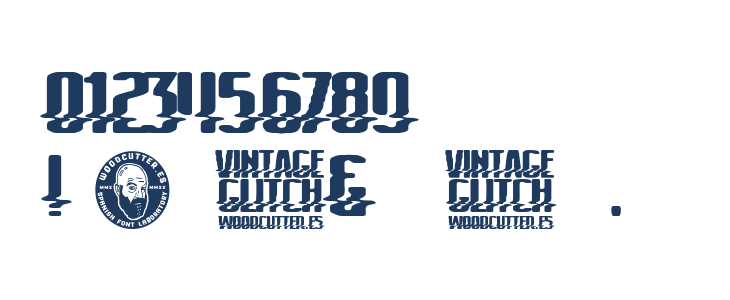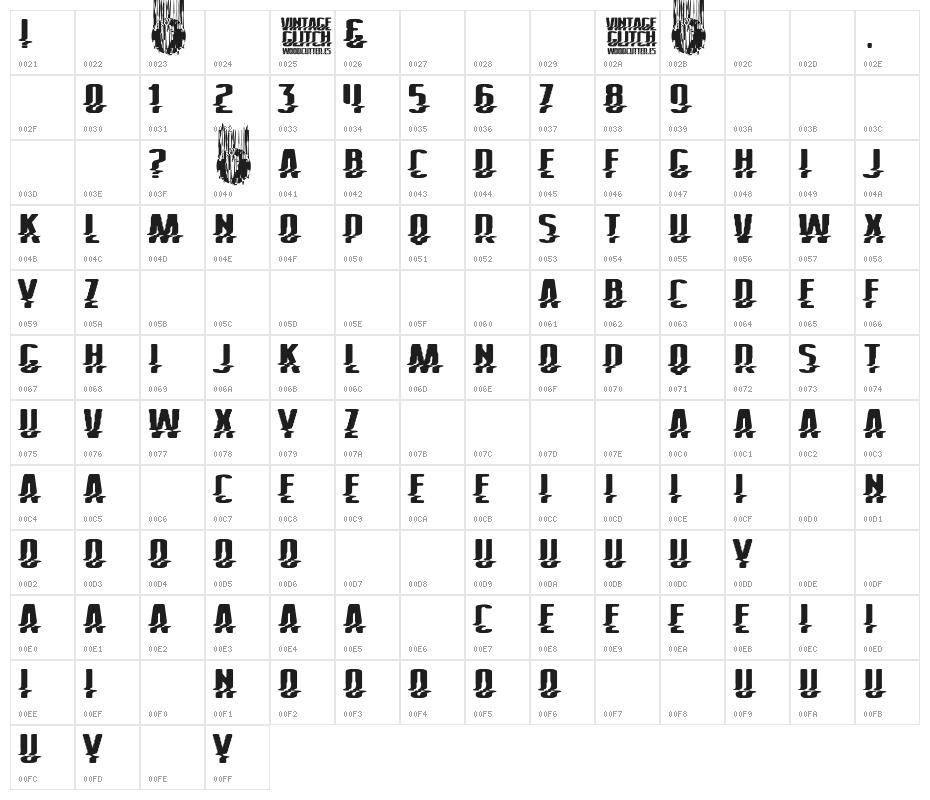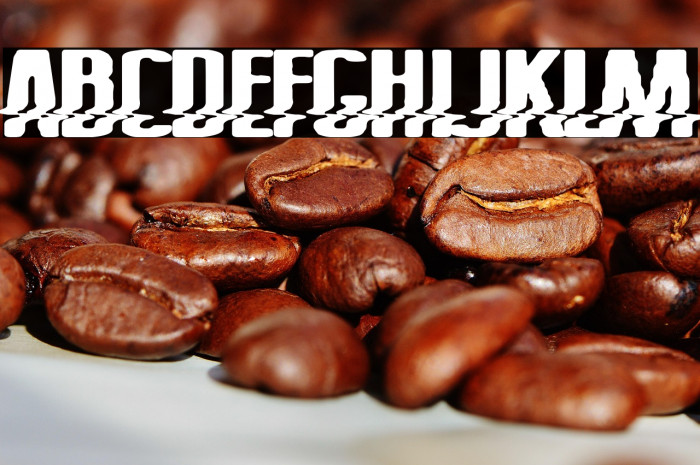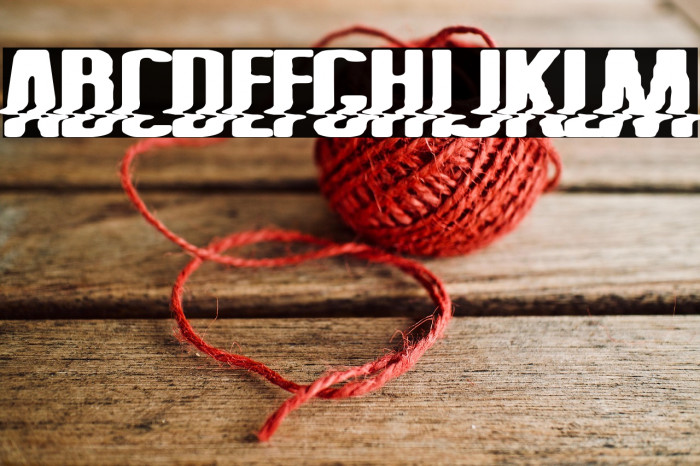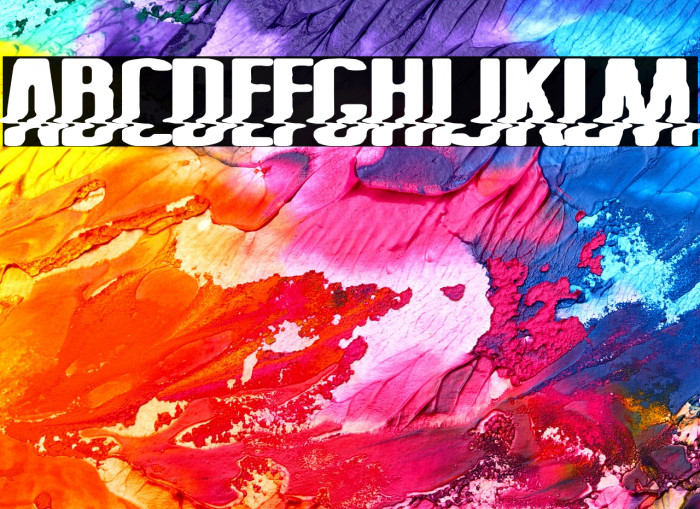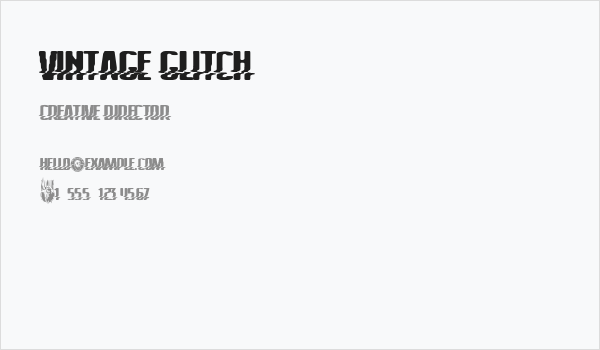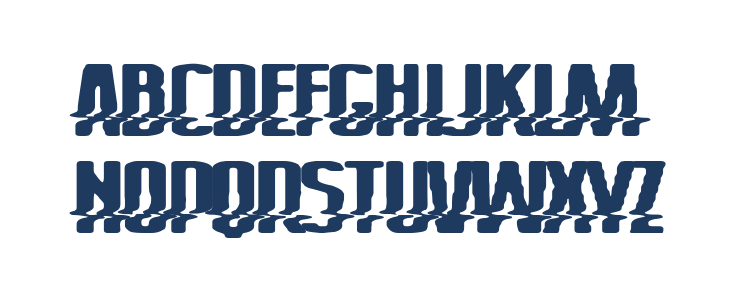
Vintage Glitch Font
Vintage Glitch Description
This font features a bold and striking design with a unique glitch effect that gives it a distorted, digital appearance. The characters are uppercase and lowercase letters, numbers, and a selection of special characters. The design is reminiscent of vintage typefaces but with a modern twist, incorporating a digital glitch aesthetic that adds an edgy, contemporary feel. The bold weight of the letters ensures they stand out, while the glitch effect adds a layer of complexity and interest. This font is perfect for projects that require a bold statement or a modern, tech-inspired look.